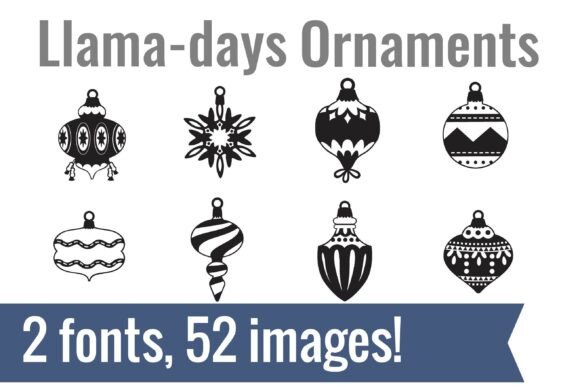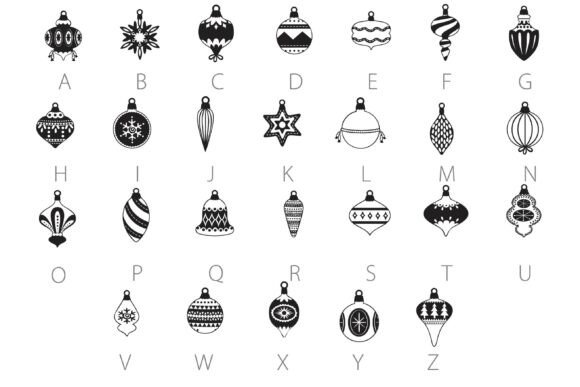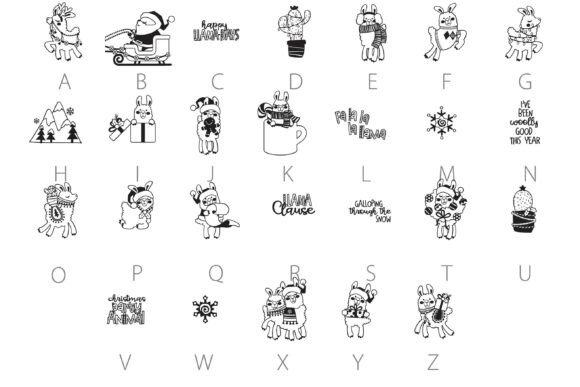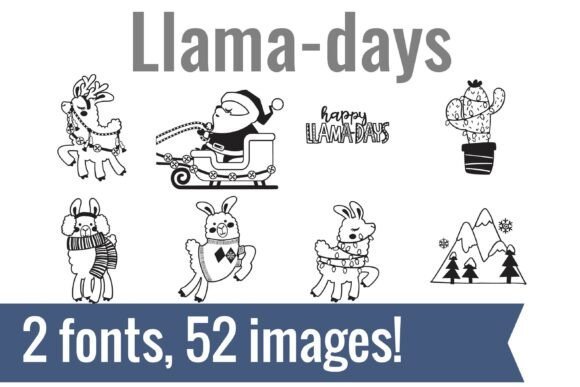
Introduction to Llama-days Dingbats Font
Unlock endless creativity with two perfectly coordinated fonts.
There are two dingbat fonts in this bundle, both featuring Christmas llamas and coordinated ornaments Bring a touch of playful, unexpected charm to your holiday designs with the hilarious and heartwarming Llama-days font set, a pair of unique dingbat typefaces starring everyone’s favorite South American animal.
Llama-days Dingbats Font offers exceptional quality and versatility, making it a valuable addition to your design toolkit. Whether you’re creating for personal projects or commercial use, Llama-days Dingbats Font delivers professional results.